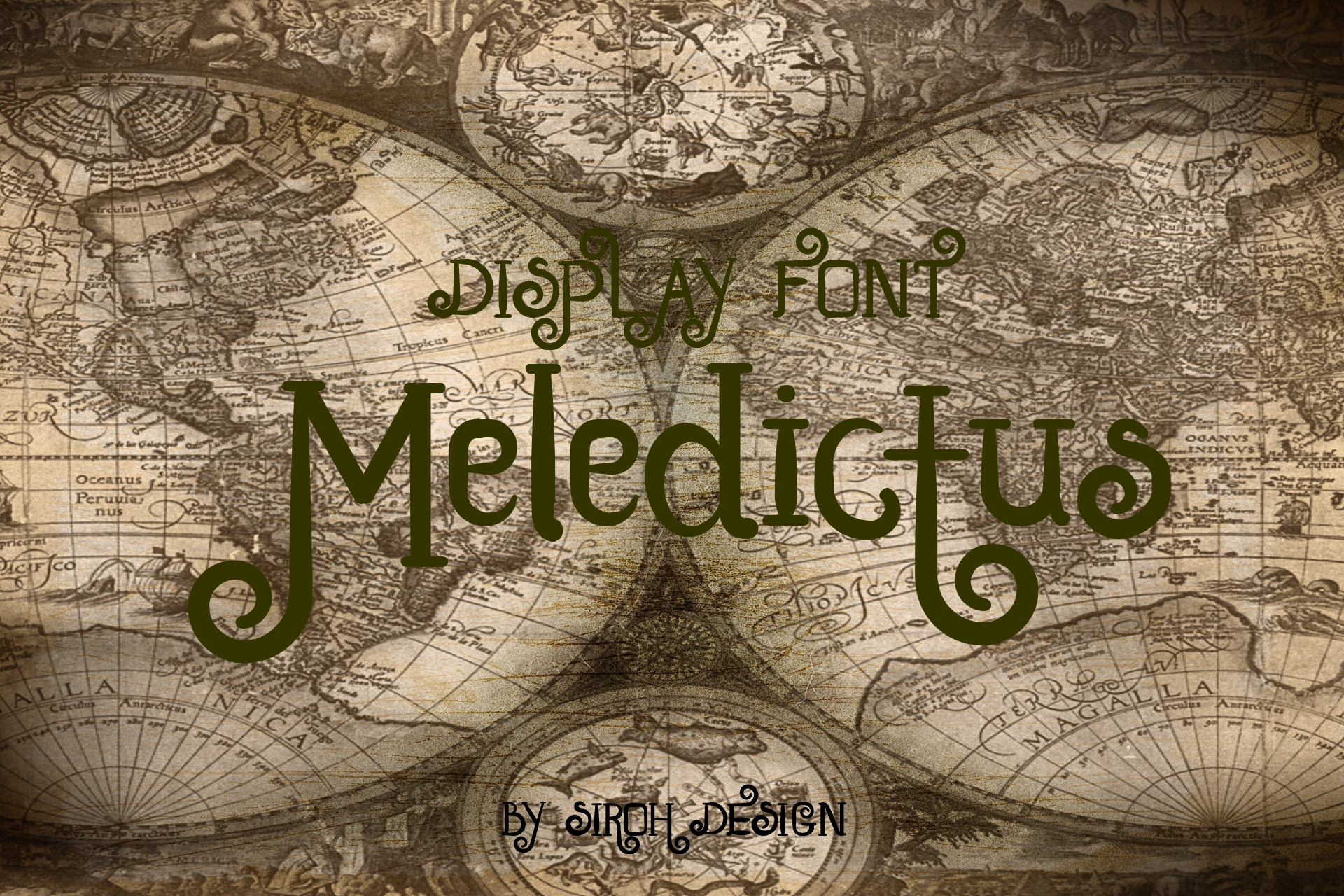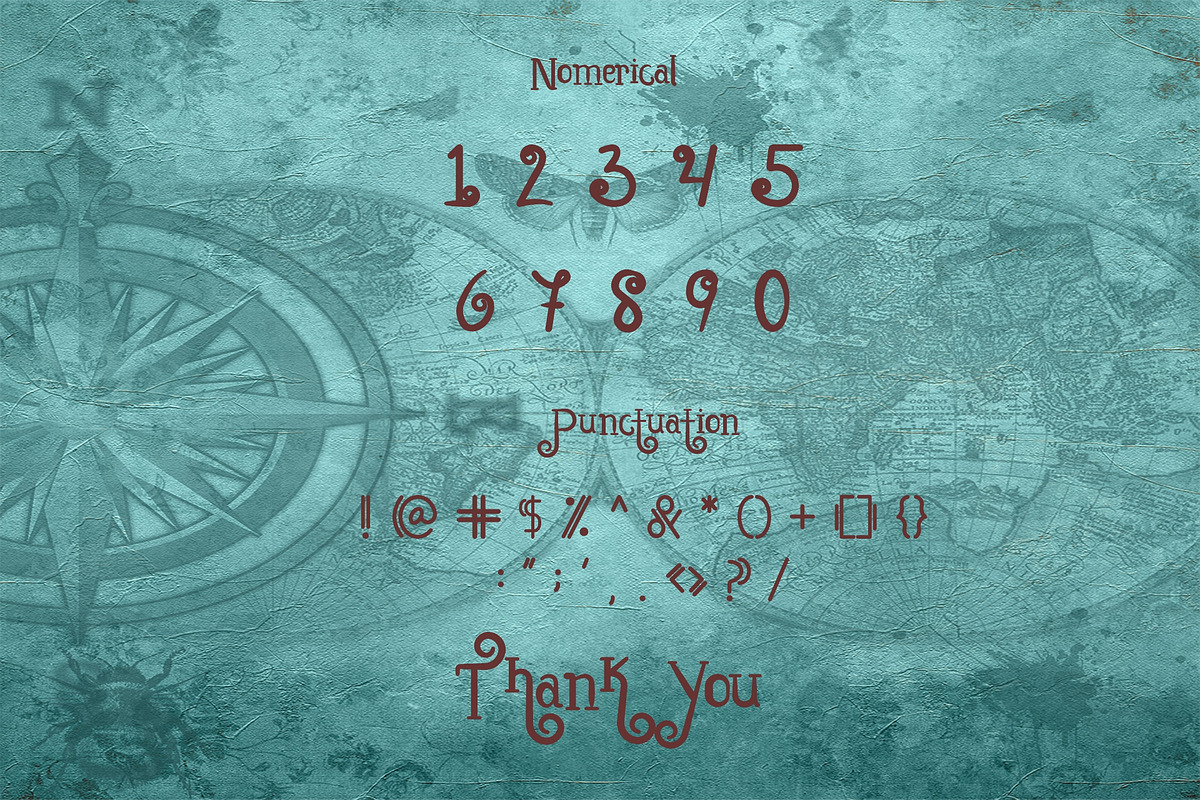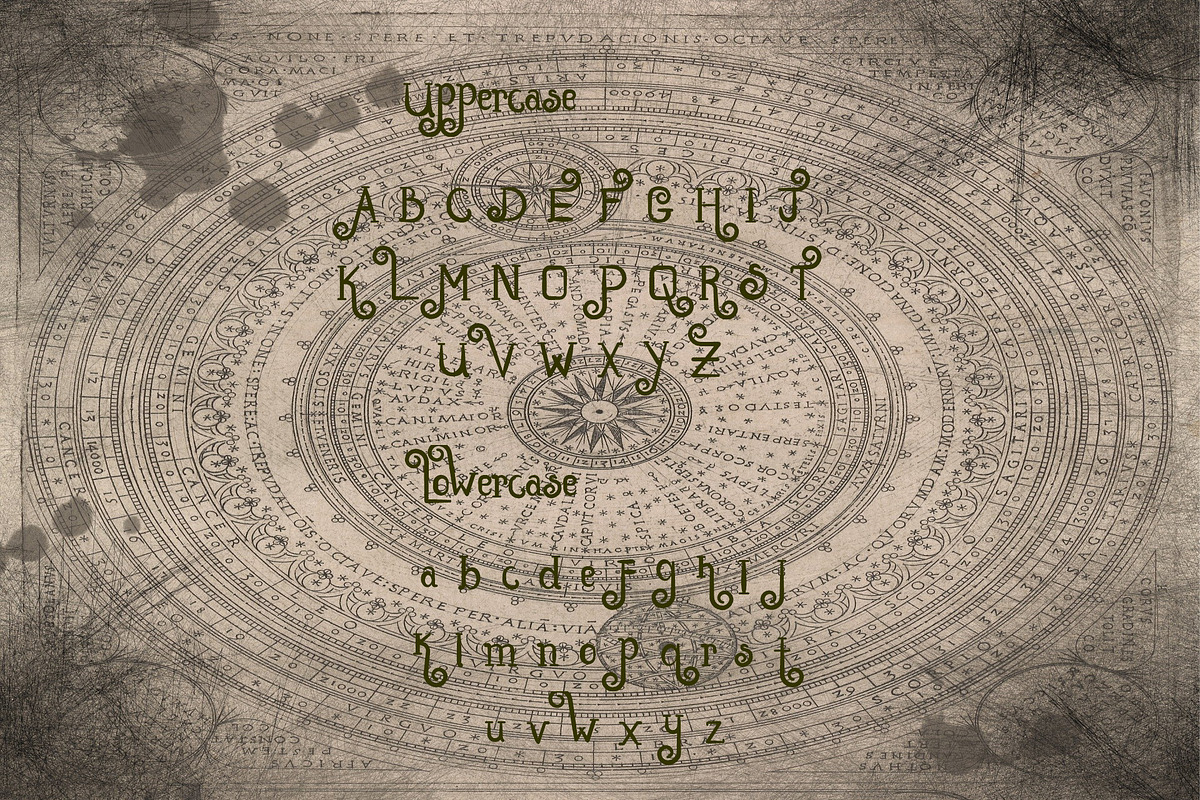
Meledictus Font
Meledictus is a distinct display font featuring versatile, vintage characters that seem to dance along the baseline. Add this font to your most creative ideas, and notice how it makes them stand out!